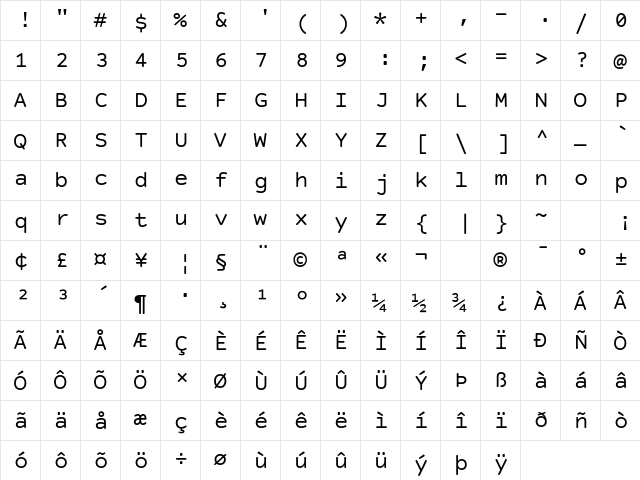
Courier Prime Code Regular
| Foundry | Quote-Unquote Apps |
| Designer | Alan Dague-Greene |
Design Context for Courier Prime Code Typeface
Courier Prime Code brings the precise, column-aligned rhythm of monospaced typography to designs that value technical clarity and systematic order.
Well-suited to data-driven dashboards, coding tutorials, and any design that wants to reference the world of programming.